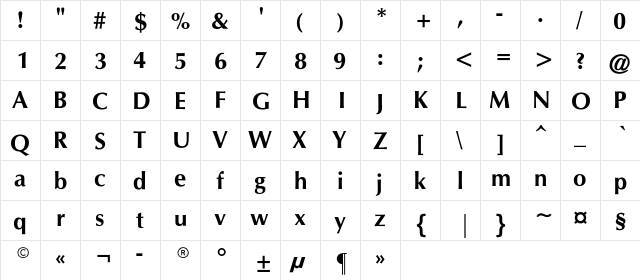
CG-OmegaC Bold
Design Context for CG-OmegaC Typeface
CG-OmegaC offers clean, dependable letterforms without strong stylistic allegiance, making it a practical choice for designers who need flexibility. The heavy weight commands attention and anchors typographic hierarchies.